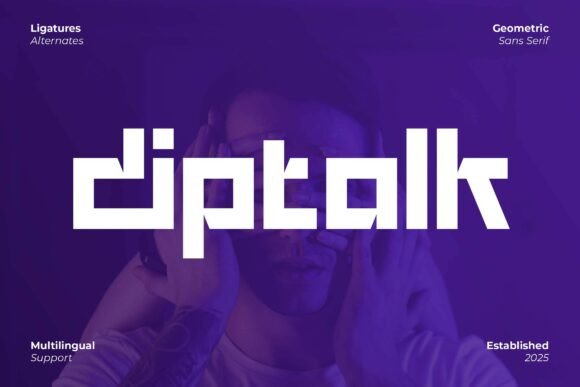
Diptalk Font: Elevate Your Brand Identity with a Sleek and Contemporary Sans Serif
In the realm of branding and logo design, typography plays a pivotal role in shaping the visual identity of a company. A well-crafted font can instantly convey a brand’s personality, values, and message, making it an indispensable element in the branding arsenal. This is where Diptalk Font comes into play – a sleek and contemporary sans serif font meticulously designed to create impactful logos and strong brand identities. In this article, we’ll delve into the features, benefits, and applications of Diptalk Font, and explore how it can elevate your brand’s visual presence.
The Essence of Diptalk Font
Diptalk Font is a modern sans serif font that boasts clean lines, a geometric structure, and balanced proportions. These characteristics combine to deliver a professional and modern look that ensures your brand stands out in any medium. Whether you’re designing a logo, creating marketing materials, or developing a website, Diptalk Font provides the versatility and sophistication needed to make a lasting impression.
Key Features of Diptalk Font
Clean Lines and Geometric Structure
One of the defining features of Diptalk Font is its clean lines and geometric structure. This design approach gives the font a minimalist yet impactful appearance, making it perfect for brands that aim to convey simplicity, elegance, and sophistication. The clean lines also ensure that the font remains legible across various sizes and mediums, from business cards to billboards.
Balanced Proportions
The balanced proportions of Diptalk Font contribute to its readability and aesthetic appeal. Each letterform is carefully crafted to ensure harmony and consistency, resulting in a font that looks polished and refined. This balance is particularly important in logo design, where the goal is to create a memorable and distinctive mark that represents the brand.
Versatility and Adaptability
Diptalk Font is designed to be versatile and adaptable, making it suitable for a wide range of applications. From logos and branding materials to websites and marketing collateral, this font can seamlessly integrate into various design projects. Its ability to maintain its impact and legibility across different mediums makes it an excellent choice for brands looking to establish a cohesive visual identity.
Benefits of Using Diptalk Font
Enhanced Brand Recognition
A unique and well-designed font like Diptalk can significantly enhance brand recognition. By using a distinctive font, you can differentiate your brand from competitors and create a memorable visual identity that resonates with your target audience.
Professional and Modern Aesthetic
Diptalk Font’s professional and modern aesthetic can elevate your brand’s image and convey a sense of sophistication and innovation. This is particularly important in industries where a modern and forward-thinking approach is valued, such as technology, design, and finance.
Improved Readability and Legibility
The clean design and balanced proportions of Diptalk Font ensure excellent readability and legibility, even at smaller sizes. This is crucial for digital platforms, where users often skim through content quickly, and for print materials, where space constraints may apply.
Applications of Diptalk Font
Logo Design
Diptalk Font is specifically designed for impactful logo design, making it an excellent choice for creating a strong brand identity. Its clean lines, geometric structure, and balanced proportions ensure that your logo looks professional, modern, and memorable.
Branding and Marketing Materials
In addition to logo design, Diptalk Font can be used across various branding and marketing materials, such as business cards, brochures, flyers, and posters. Its versatility and adaptability make it easy to integrate into different design projects, ensuring a cohesive visual identity.
Digital Platforms
Diptalk Font is also suitable for digital platforms, including websites, social media graphics, and email marketing campaigns. Its legibility and aesthetic appeal ensure that your brand’s message is effectively communicated across different digital channels.
Diptalk Font is a powerful tool for creating a strong brand identity and elevating your brand’s visual presence. Its sleek and contemporary design, combined with its versatility and adaptability, make it an excellent choice for impactful logo design and branding materials. By incorporating Diptalk Font into your design projects, you can enhance brand recognition, convey a professional and modern aesthetic, and improve readability and legibility across various mediums.
Whether you’re a designer, entrepreneur, or marketer, Diptalk Font offers a wide range of benefits and applications that can help you achieve your branding goals. With its clean lines, geometric structure, and balanced proportions, Diptalk Font is poised to become a go-to choice for brands looking to make a lasting impression and establish a strong visual identity.